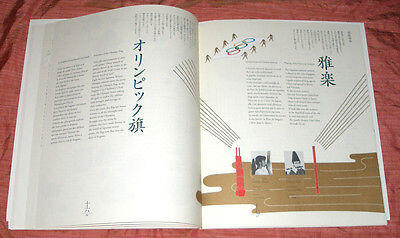
This research paper sets out to study the evolution of western-influenced Japanese typography from the turn of the twentieth century to the modern digital age. The last one hundred years have seen more changes in script and typography than the previous four hundred years combined. Not since the kana scripts (hiragana and katakana) were developed in the fifth and sixth centuries has there been so much reform and growth in Japan’s written forms. This is due in part to the demands for reform in response to becoming a more globally minded nation, emerging even before the dramatic effects of World Wars I and II. Now, being a worldwide leader technology and commerce, there is both a beautiful tension and mindful balance that Japan is striking between honoring their ancient traditions and appealing to modern sensibilities.
Edo, Meiji, and Showa
To begin, we will observe multiple time periods that shaped Japanese typographic evolution. The Edo period, which has its origin in the seventeenth century, beautifully encapsulates the artistic influence of Japan’s Arts and Crafts movement. It was during this time that Japan rejected international contact for over a hundred years during its period of isolation (1603-1716). In the 18th century, the shogun Yoshimune (ruled 1716-1845) restored some links to the rest of the world. However, even by the mid-nineteenth century, Japan refused to trade with the West. In the Treaty of Kanagawa, Japan restored trade with the United States by opening up two ports to American ships. Not long afterward, the Japanese also negotiated peaceful trading agreements with Great Britain, the Netherlands, and Russia. In 1868, warlords in western Japan deposed the last shogun, Yoshinoby, and replaced him with the fifteen-year-old emperor, Mutsuhito, who took the name Emperor Meiji. Meiji sent Japanese students abroad to study, welcomed foreigners to Japan, outlawed the caste system, abolished the samurai and initiated a forty-year period of rapid modernization in Japan (Classical Conversations, 124).
Prior to this period of restoration with foreign interactions, tradition was paramount. Researcher Ory Bartal asserts:
“In Japan, the shape of a letter has held great importance from a very early time. Traditional Japanese calligraphy has several writing styles: tansho, reisho, and sosho. Each letter can be written differently, each having its own meaning. In other words, the writing style is not just decorative, but a meaningful tool that builds the visual shape of the language and influences the textual content, just as much as the words themselves” (57).
Ellen Lupton dissects the preliminary changes that began to occur with the newly shifting focus during this time: “Traditionally, Japanese people wrote in vertical lines with a brush, but with the spread of imported books written in Western languages after the Meiji Restoration, people began writing in horizontal lines with a pen as well” (190).
Lupton goes on to highlight the Tsukiji Type Foundry which appeared in the 1860s and had a profound effect on how the Japanese approached typography. Its creator, Motogi Shozo (born 1824), is credited as Japan’s Father of Typography. He came from a long line of language interpreters and grew up in the maritime trade industry of Nagasaki. Learning everything from the importance of printable communication to the ins and outs of steel type-casting, he set out to make a mark in print publication. Motogi invited Irish printing expert William Gamble to spend four months with him in Japan. Within that time, they created The Center of Teaching Typography. After Gamble left, Motogi opened a printing shop named Shinmachi. This foundation is what later became known as the first type foundry in Japan, the Tsukiji Foundry, established in 1873.
“After years of toil and experiment, Motogi invented types for Japanese characters and for the first time, made printing a business. We owe, indeed, to him alone the success and prosperity of Japanese typography in modern times. He is, therefore, most deserving of our esteem, as the Father of Japanese Typography. – Mataga Shiqeri” (DesignCultureNow).
In the compilation work by Silbergeld, Bridges to Heaven, Duke professor Gennifer Weisenfeld, contributed her work, Japanese Typography and the Art of Letterform, where she illuminates some of the dynamics that followed Motogi’s work:
“Despite its repeated introduction to Japan from China, Korea, and Europe over many centuries, movable type (letterpress printing) was not widely adopted in Japan until the late nineteenth century due to the high cost and relative inconvenience of casting individual types for thousands of characters. Because of the difficulty and expense of developing type, as well as the inability of type to simulate adequately the dynamism of calligraphy, the majority of innovative and expressive letterform designs in Japan, until the inauguration of digital fonts in the computer age, has been hand-designed printed lettering rather than actual cast typefaces, what Kawahata has termed kaki moji” (830-831).
Public interest began to take notice as more and more print publications became available to the general populace during this time. This was due, in no small part, to the contribution of local bookstores that aspired to make a greater mark in their individual communities. This priority has only grown over time. In The Typographic Imagination, Nathan Shockney writes of one such pioneering establishment:
“At the vanguard of Japan’s modern book trade was the iconic Nihonbashi shop Maruzen, which was founded in 1869 and remains one of the country’s best-known bookstores. At Maruzen, Western books were media that heralded new forms of knowledge, and the store’s original stock consisted of reference texts like Noah Webster’s American Dictionary of the English Language and other foreign textbooks and encyclopedias. The store’s mission to bring Western knowledge to the Japanese public was evident in the shop’s original name, Maruya, written with the character for “sphere” and chosen to evoke the globe and the wide world. Maruzen’s mission to procure foreign literary and philosophical texts made the store a site for authors and intellectuals seeking new ideas from abroad; in addition to reading material, Maruzen also provided the necessary tools for writing modern literature, including imported European paper, ink, and pens. Maruzen thus furnished both the possibility to consume modern literature and the media by which to produce it” (95-96).
This produced a symbiotic cycle where, as Shockney describes, “Interest in Edo (era) fiction helped drive the used-book trade, as woodblock-printed, string-bound wahon were distinct from cheap mass-market editions, and illustrated early modern genres like kibyōshi could not easily be reproduced through typography alone” (108). Later, he illustrates how the reading population of local communities exploded between 1912-1923, going from approximately 3.6 million library users to nearly 21 million (115).